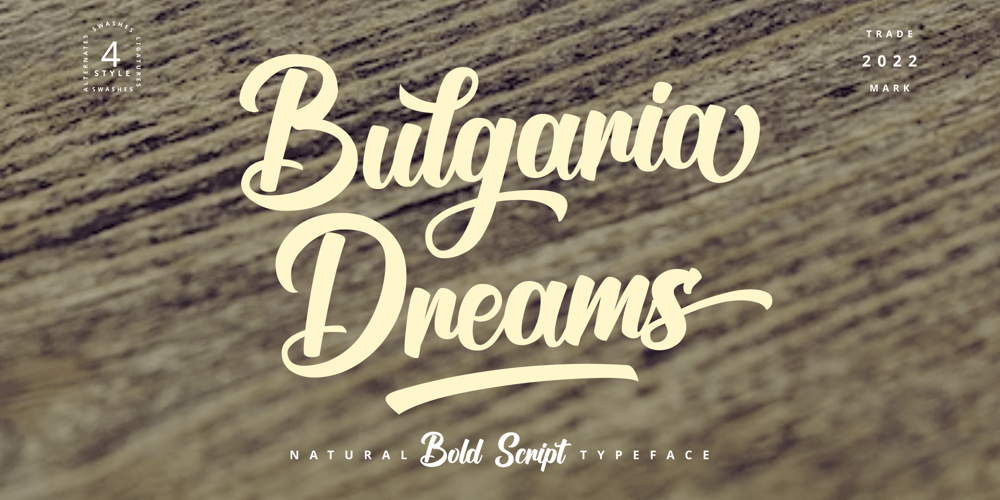
Bulgaria Dreams Font Family was designed by Nur Rohman Rizki and published by Riasyletter_Studio. Bulgaria Dreams contains 4 styles and family package options. Are you looking for fonts for logos and event brochures?Bulgarian Dreams font the solution,Bulgarian Dreams Font is a lettering style font with a touch of smooth and natural curved lines like when writing manually on paper using a brush pen.There are 4 font styles that you can use to enhance your designApart from being used for logos and brochures, Bulgaria Dreams font can also be used for poster titles, book titles, lettering, merchandise Design etcWhat’s Included : – More than 270 of glyphs (include Uppercase, Lowercase, Numerals & Punctuations, Stylistic,Ligatures ) – multilingual support – Works on PC & Mac – Simple installations – Accessible in the Adobe Illustrator, Adobe Photoshop, Adobe InDesign, even work on Microsoft Word. – PUA Encoded Characters (fully accessible without additional design software)Support For Language :Albanian, Basque, Breton, Chamorro, Danish, Dutch, English, Faroese, Finnish, French, Frisian, Galician, Italian, Malagasy, Norwegian, Portuguese, Spanish, Alsatian, Aragonese, Arapaho, Arrernte, Asturian, Aymara, Bislama, Cebuano, Corsican, Fijian, French_creole, Genoese, Gilbertese, Greenlandic, Haitian_creole, Hiligaynon, Hmong, Hopi, Ibanag, Iloko_ilokano, Indonesian, Interglossa_glosa, Interlingua, Irish_gaelic, Jerriais, Lojban, Lombard, Luxembourgeois, Manx, Mohawk, Norfolk_pitcairnese, Occitan, Oromo, Pangasinan, Papiamento, Piedmontese, Potawatomi, Rhaeto-romance, Romansh, Rotokas, Sami_lule, Samoan, Sardinian, Scots_gaelic, Seychelles_creole, Shona, Sicilian, Somali, Southern_ndebele, Swahili, Swati_swazi, Tagalog_filipino_pilipino, Tetum, Tok_pisin, Uyghur_latinized, Volapuk, Walloon, Warlpiri, Xhosa, Yapese, Zulu, Latinbasic, Ubasic, Demo